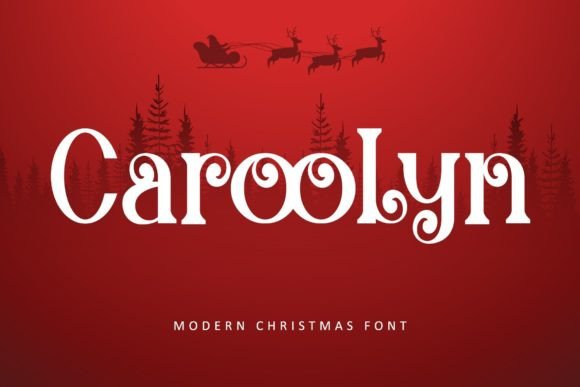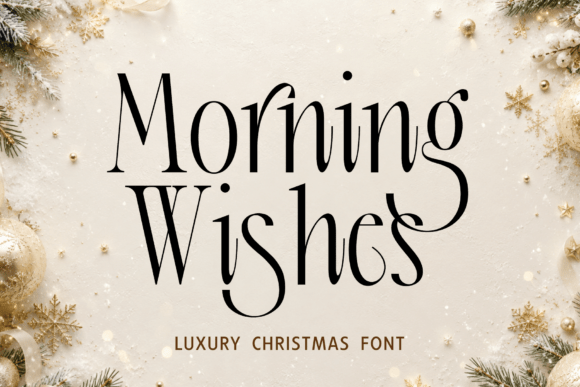
Merry Christmas Font: 36 Best Serif & Sans Serif Picks for Branding (2026)
Every merry Christmas font doesn’t need a swash or a snowflake, sometimes a clean, dependable serif or sans serif does more for a brand’s holiday campaign than another script ever could. Here are 36 Christmas-appropriate serif, sans serif, slab serif, and blackletter fonts built for logos, packaging, and body text that need to stay legible under a seasonal theme.
Why a Plain Merry Christmas Font Still Matters
A script or display font grabs attention, but a clean serif or sans serif merry Christmas font is what actually gets read: product descriptions, packaging fine print, email headers, and body copy all need a font that stays legible rather than decorative. Keeping one or two reliable serif and sans serif options in your holiday toolkit means every script headline has something solid to pair with.
36 Merry Christmas Font
1. Caroolyn
Best for: Holiday Decor
Caroolyn is a modern and luxurious serif font. This typeface is not only designed for Christmas needs, so you can easily customize it to your needs.
2. Vintage Christmas
Best for: Holiday Decor
Experience the nostalgic charm of “Vintage Christmas,” a texture font that transports you to the timeless elegance of the holiday seasons gone by.
3. Christmas MInimalist
Best for: Holiday Decor
Christmas MInimalist is a thin and tall sans serif font.
4. Wild Crimson
Best for: Holiday Decor
Wild Crimson is a bold rough edge display font. With ligatures that included, you can make your design more stand out and stylish.
5. Happy Rainday
Best for: Holiday Decor
Happy Rainday is a festive and merry typeface that captures the spirit of the holiday season. With its decorative elements and whimsical flair, it adds a touch of enchantment to your designs.
6. Modern Blackletter Mega Bundle
Best for: Holiday Decor
Modern Blackletter Mega Fonts Bundle Product Description Elevate your creative projects with the Modern Blackletter Mega Fonts Bundle, a carefully curated collection of 30+ premium blackletter, gothic, vintage, medieval, western, decorative, and display fonts.
7. String Lights
Best for: Invitations
String Lights is a fun fun and bold sans serif font. font inspired by birthday invitation typography.
8. Thimes Christmas
Best for: Holiday Decor
Thimes Christmas Elegant Serif Font is a refined display typeface that combines timeless serif structure with graceful decorative swashes.
9. Playful Holidays
Best for: Holiday Decor
Playful Holidays is an elegantly minimalist, thin sans serif font that mirrors the charm of natural handwriting.
10. Fresh Mango
Best for: Holiday Decor
Fresh Mango is a Retro Serif Font. Create bold, gorgeous headlines and elegant designs with a vintage flair.
11. Christmas Morning Wishes
Best for: Holiday Decor
# Morning Wishes – Christmas Font **Morning Wishes** is a charming Christmas font designed to capture the warmth, happiness, and magical spirit of the holiday season.
12. Social Media
Best for: Social Media Graphics
Social Media is a festive and merry typeface that captures the spirit of the holiday season. With its decorative elements and whimsical flair, it adds a touch of enchantment to your designs.
13. Fall Thankfully
Best for: Holiday Decor
Fall Thankfully is cute font duo, combining monoline script font with swash and all caps bouncy sans serif with ligature.
14. Ballon Romance
Best for: Holiday Decor
Ballon Romance is designed in a cute and friendly handwritten sans serif font style. This would be awesome for your fun projects or diary planner.
15. Malibu Holiday Duo
Best for: Holiday Decor
Malibu Holiday is a lovely and cute font duo with two styles – script monoline and serif display.
16. Special Delicious
Best for: Holiday Decor
Special Delicious is a festive and merry typeface that captures the spirit of the holiday season.
17. Spooky Witchy
Best for: Holiday Decor
Immerse yourself in a magical world of twilight forests, moonlit nights, and beguiling All Hallow’s Eve, courtesy of Spooky Witchy, a beguiling serif typeface.
18. Seravelle
Best for: Holiday Decor
Immerse yourself in the luxury of Seravelle, an intricate display serif typeface that encapsulates a breathtaking fusion of timeless elegance and up-to-date sophistication.
19. Writing Assignment
Best for: Holiday Decor
Writing Assignment is a festive and merry typeface that captures the spirit of the holiday season.
What is a slab serif font good for?
Slab serif fonts have thick, blocky serifs that read as sturdy and modern, a good middle ground between a plain sans serif and a more traditional serif for headlines that still need some personality.
Are blackletter fonts appropriate for Christmas branding?
Yes, in the right context, blackletter carries an old-world, traditional weight that suits vintage-inspired holiday branding, certificates, or festive signage.